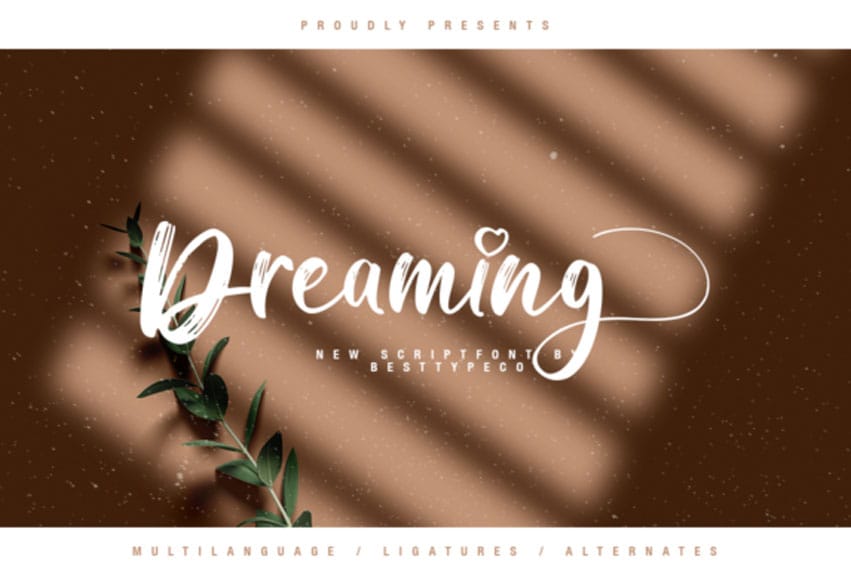
Dreaming Font is a stunning and dreamy script font that will turn any design project into a true piece of art.
Most suitable for poster design, headlines, quote writing, pamphlets, greeting cards, product packaging, book covers, logotypes, album covers, etc.